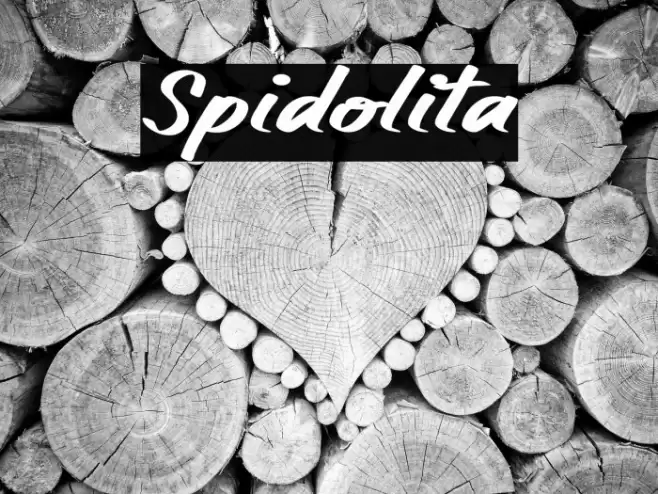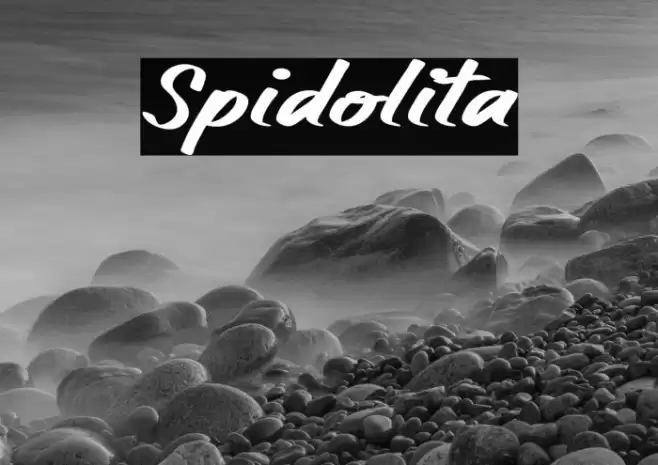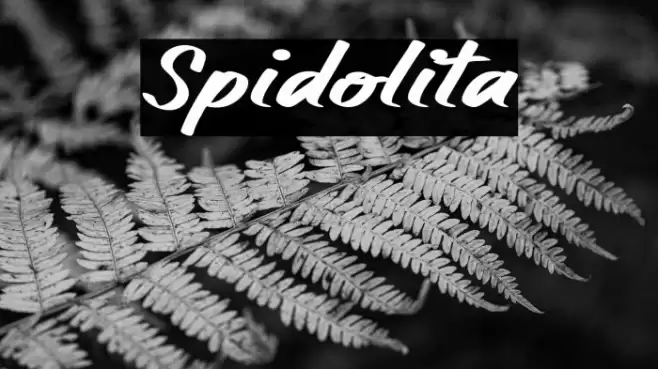
Spidolita Font
Spidolita Description
This font exhibits a dynamic and fluid script style, characterized by its smooth, flowing lines and cursive nature. The uppercase letters are bold and slightly slanted, giving a sense of movement and elegance. The lowercase letters maintain a consistent style, with rounded forms and a playful touch. The numerals are equally expressive, with a slight tilt that complements the overall aesthetic. Special characters are designed to match the script's lively and artistic feel, making them suitable for creative and informal applications. The font's overall appearance is both modern and artistic, ideal for projects that require a personal and handwritten touch.
A dynamic and fluid script font with a modern, artistic flair from Regular fonts.
- Proposed Projects: Ideal for invitations, greeting cards, branding, and creative projects that require a personal touch.
- Overall Style: Modern, Artistic
- Use Case: Headlines, Logos, Invitations